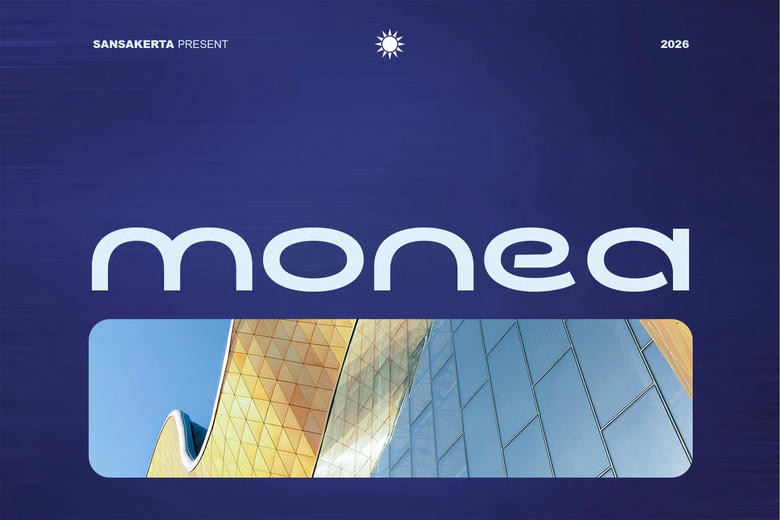
Monea is a clean, high-quality sans-serif font created by Sansakerta. You can download it for free and use it for personal projects. Monea works well for books, magazines, logos, branding, photography, quotes, blog headers, posters, and advertisements.
Monea Sans Serif Font